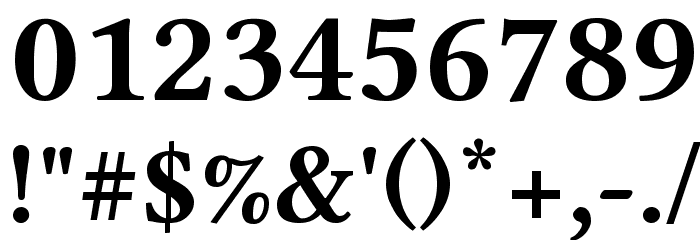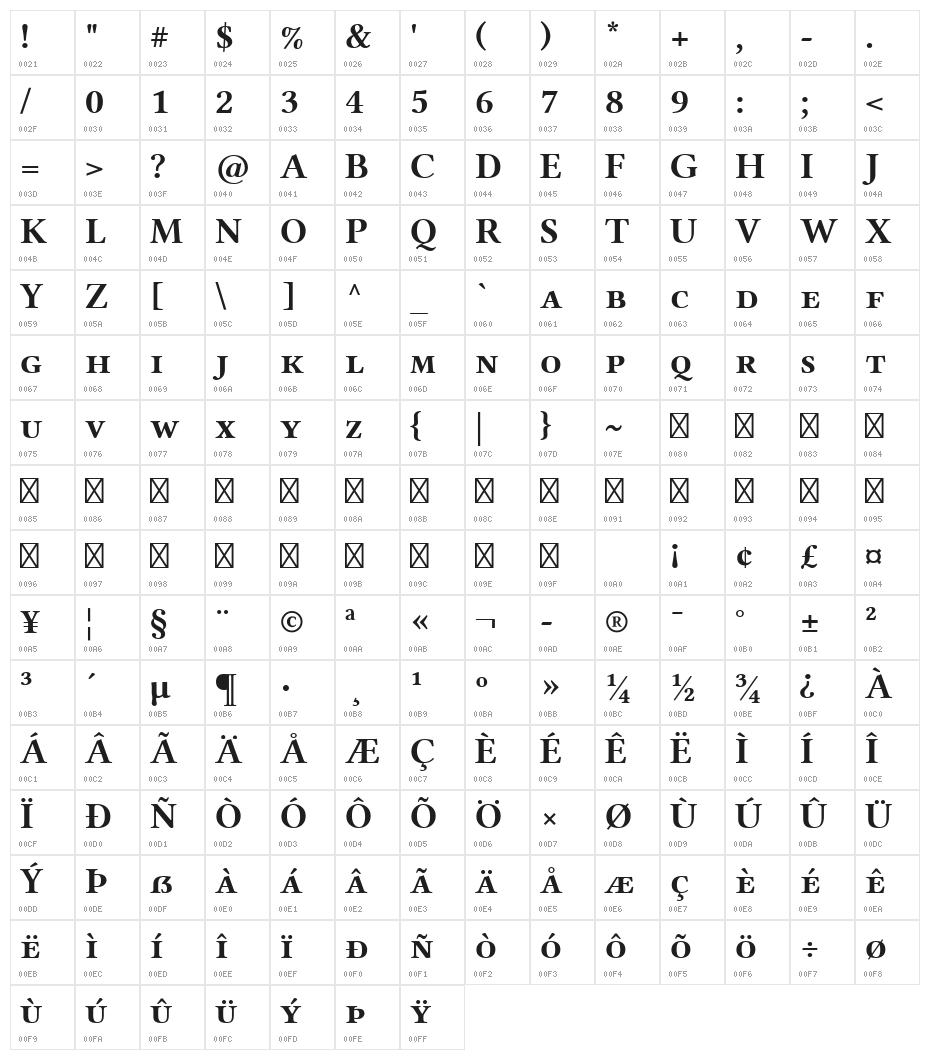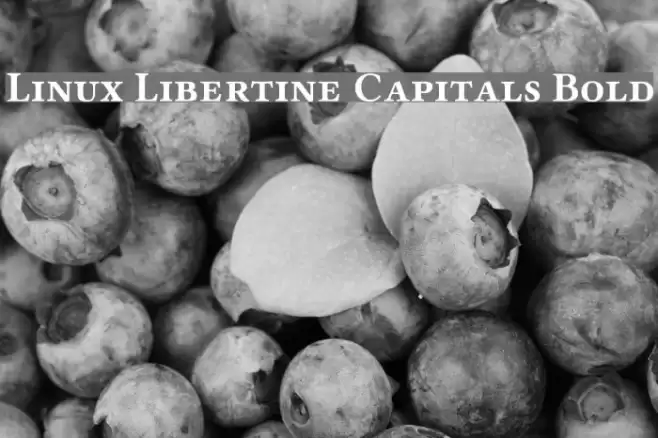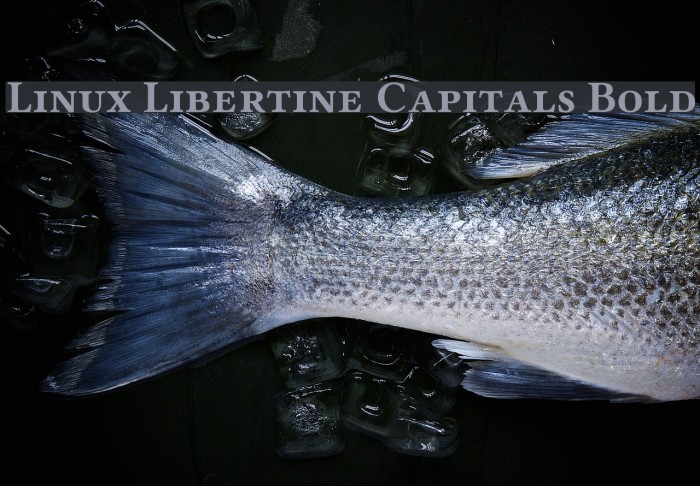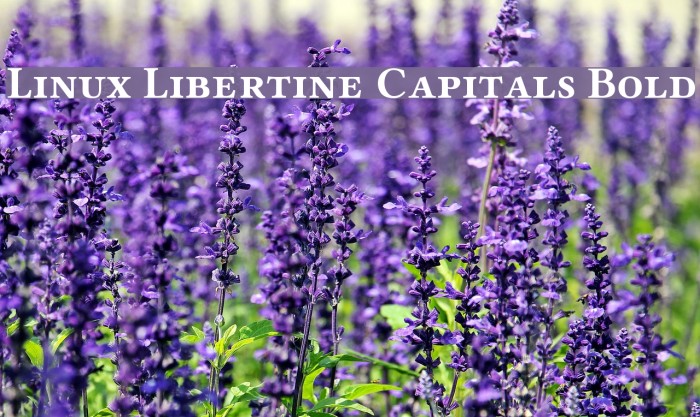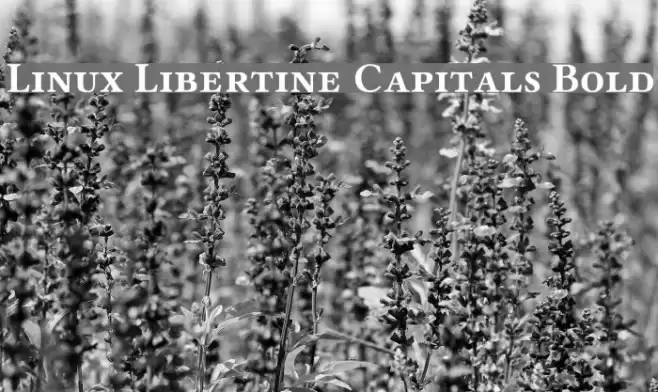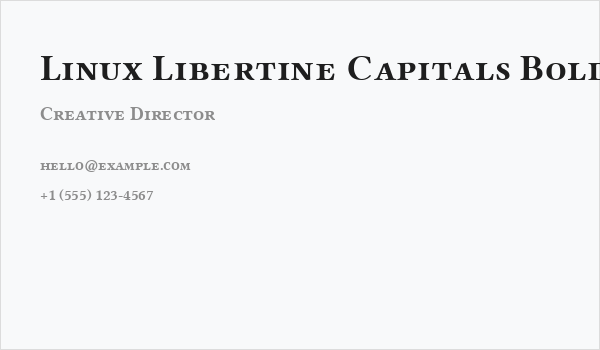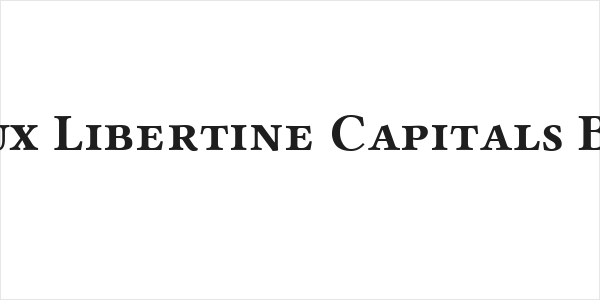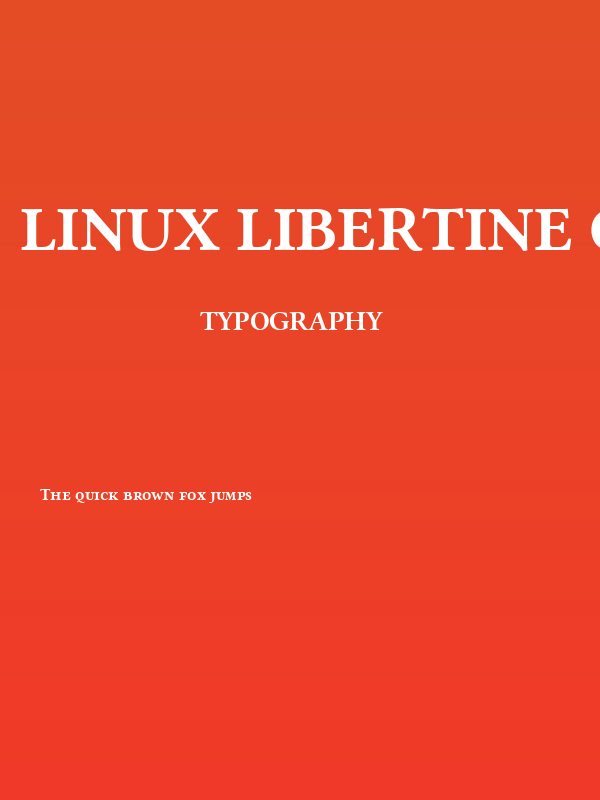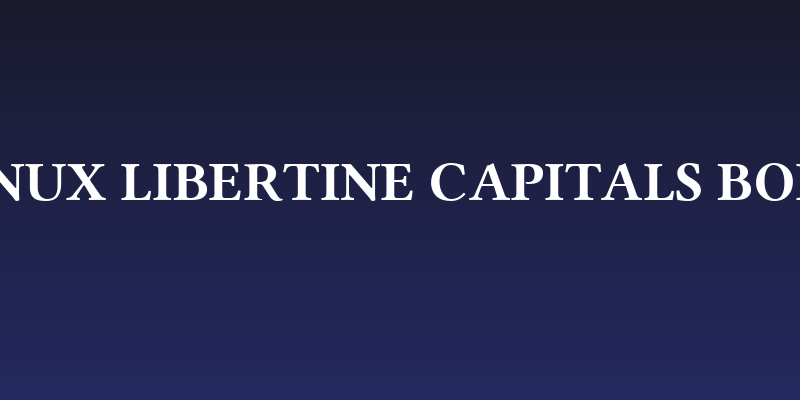
Linux Libertine Capitals Bold Font
Linux Libertine Capitals Bold Description
This font exhibits a classic serif style with bold, prominent strokes that convey a sense of authority and tradition. The uppercase letters are well-defined with sharp serifs, providing a formal and elegant appearance. The numerals are equally bold, maintaining consistency with the overall design. The special characters are crafted with precision, ensuring readability and aesthetic appeal. This font is suitable for projects that require a touch of sophistication and clarity.
| Use Case | Headlines, Logos, Editorials |
| Proposed Projects | Ideal for book covers, formal invitations, branding materials, and editorial headlines. |